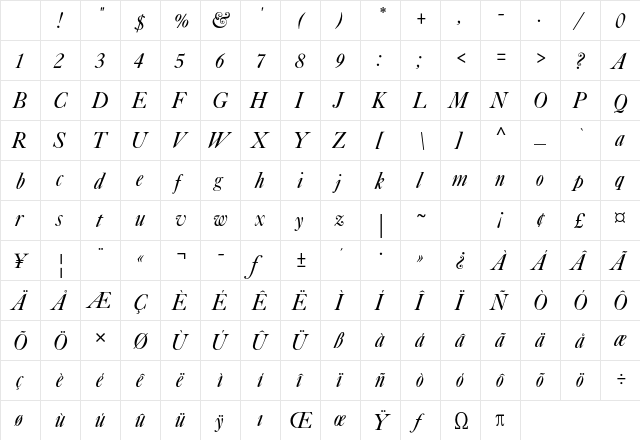
Caslon Italic with Swashes Std flows with the natural rhythm of handwritten lettering, making it ideal for designs that call for warmth and personal expression.
Font Pairing: Combine Caslon Italic with Swashes Std with a simple geometric sans for maximum contrast - the tension between flowing curves and clean structure is a classic typographic pairing.
Pro Tip: Use Caslon Italic with Swashes Std for short runs of text - names, titles, or taglines. Extended body copy in script faces tires the eye quickly.